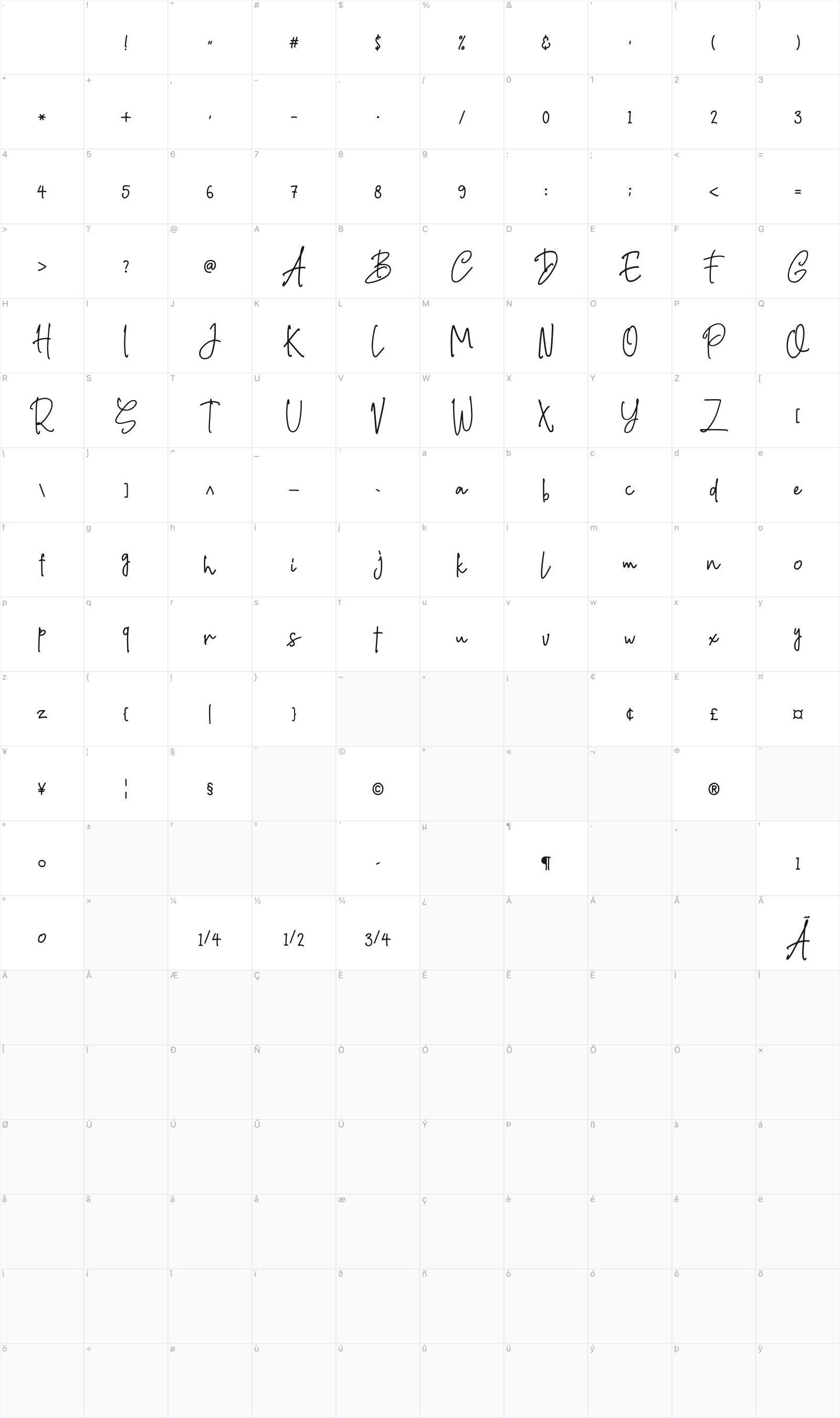
Prily
Prily is a thin, flowing signature-style script from Typefar with an elegant but relaxed stroke that feels personal rather than overly polished. The lightweight letterforms carry a feminine softness that works naturally for wedding stationery, beauty branding, and editorial accents where you want something that reads as handwritten without losing legibility.